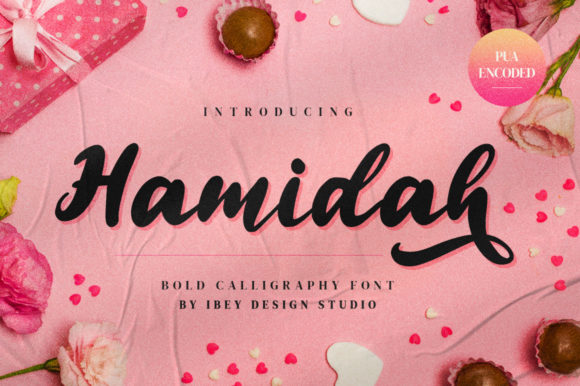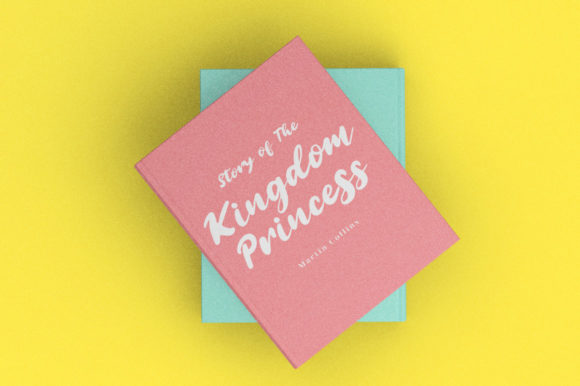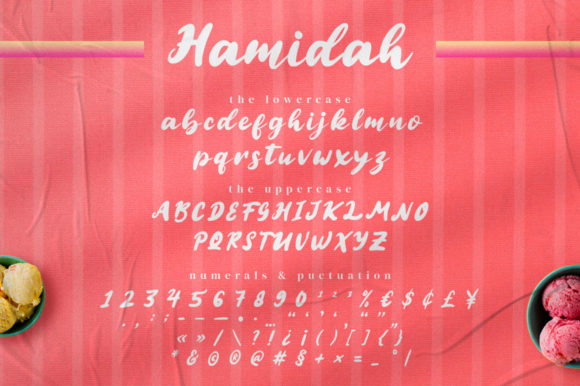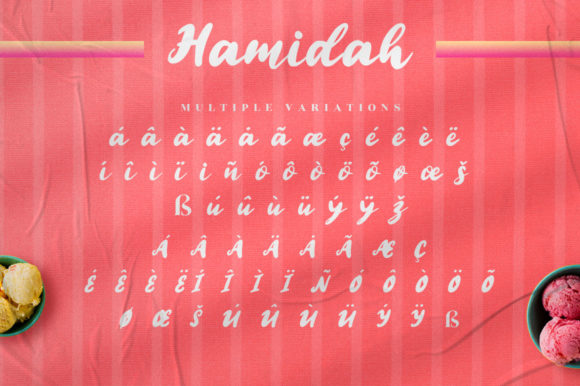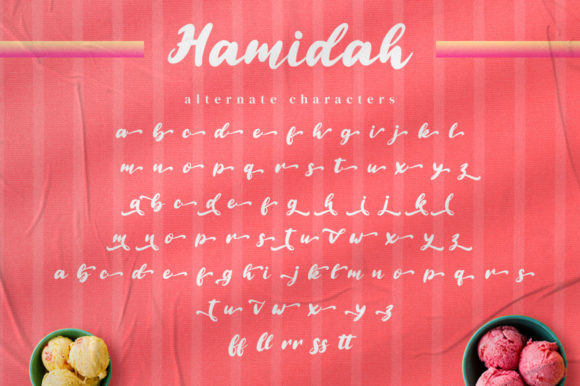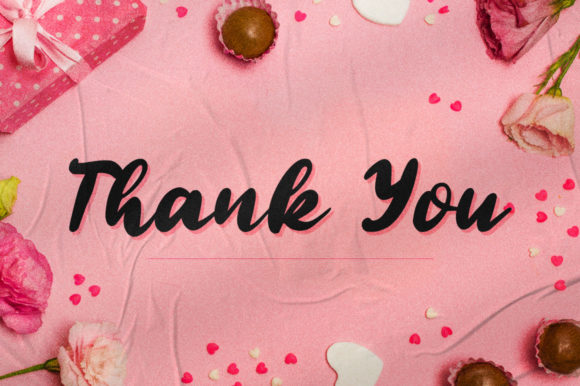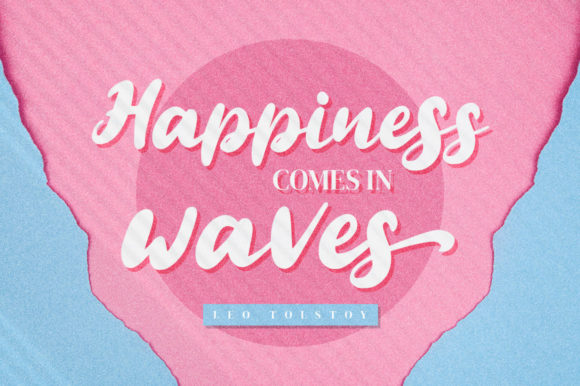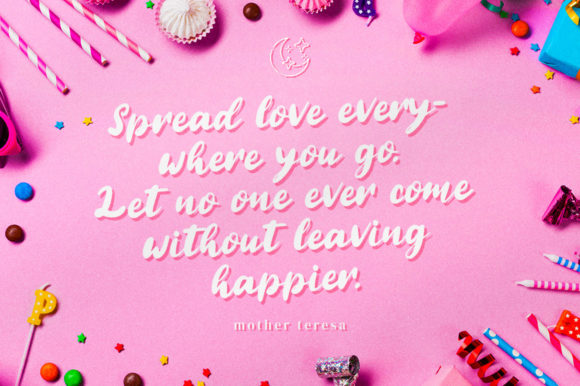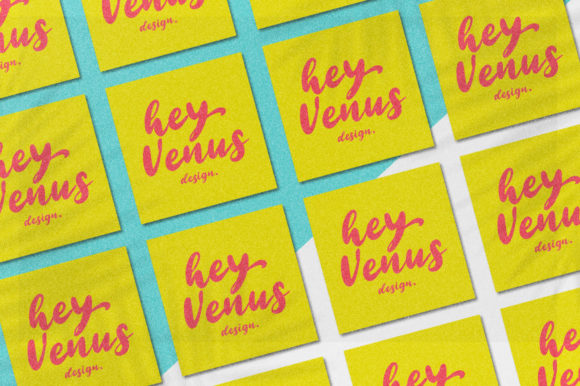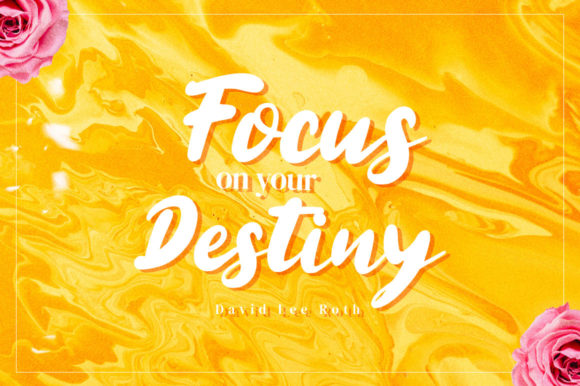
Hamidah Font
About Hamidah Font
Hamidah is a stunning and bold handwritten font that brings a strong and dynamic presence to your designs. With its confident and nostalgic character, this font adds a touch of uniqueness and personality to any project.
The bold nature of Hamidah gives it a powerful and impactful appearance. The strong strokes and thick letterforms make a statement and command attention. This makes Hamidah particularly suitable for headlines, titles, and other prominent design elements that require a bold and confident touch.
The nostalgic character of Hamidah adds a charming and vintage feel to your designs. It evokes a sense of nostalgia and timelessness, making it a great choice for projects that aim to capture a retro or classic aesthetic. Whether you’re designing a poster, packaging, or branding materials, Hamidah brings a touch of nostalgia and character to your typography.
With its PUA encoding, Hamidah offers easy access to all of its glyphs and swashes. This allows you to explore and experiment with different letterforms, ligatures, and decorative elements to create customized and visually appealing compositions. The availability of these additional glyphs and swashes expands your creative possibilities and allows you to tailor the font to your specific design needs.
Hamidah is a versatile font that can be used in a variety of design contexts. Its bold and confident style makes it suitable for branding, advertising, posters, book covers, and more. It adds a unique and eye-catching element to your designs, setting them apart and leaving a lasting impression.
Whether you’re designing for a modern project that needs a bold and dynamic touch or aiming for a vintage-inspired look, Hamidah is a font that delivers. Its strong and confident appearance, combined with its nostalgic character, makes it a versatile choice that can enhance a wide range of design projects.
In conclusion, Hamidah is a gorgeous and bold handwritten font that brings strength, confidence, and nostalgic character to your designs. With its PUA encoding, you can easily access all of its glyphs and swashes to customize your compositions. Let Hamidah make a bold statement in your designs and add a touch of nostalgia and personality to your typography.